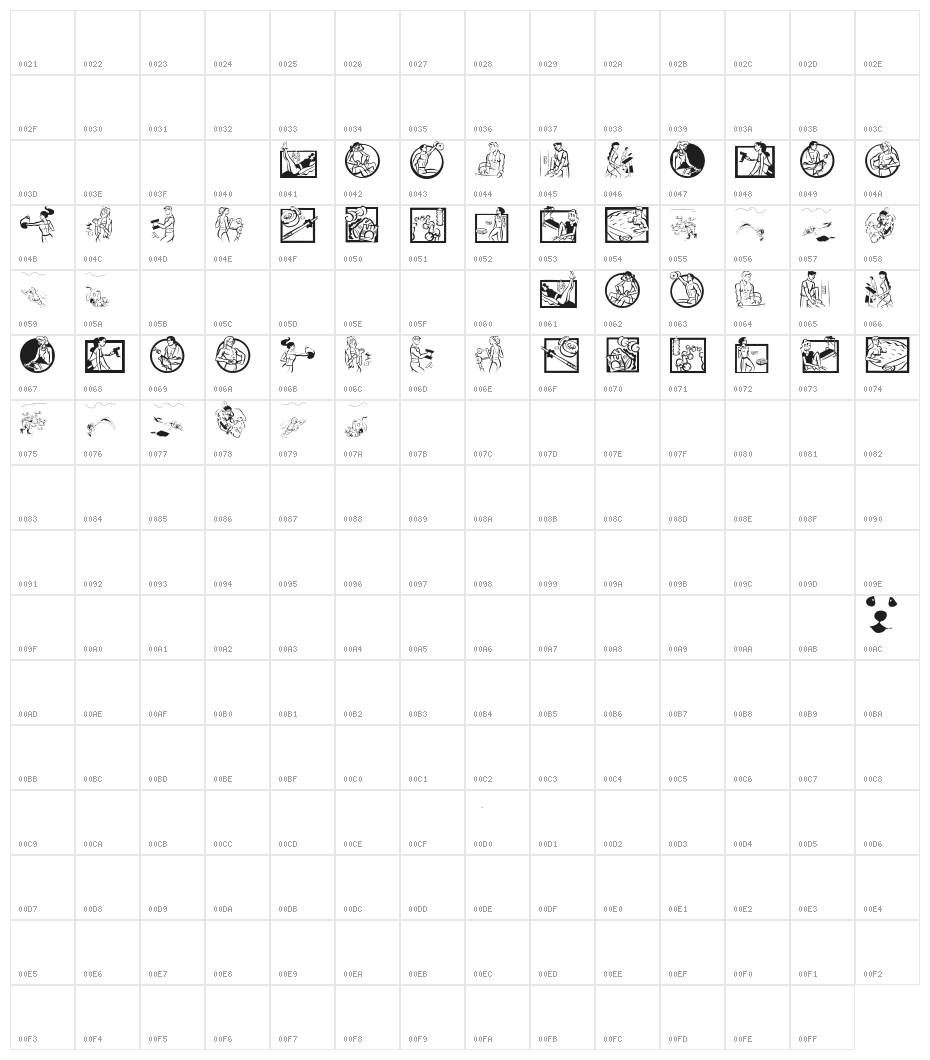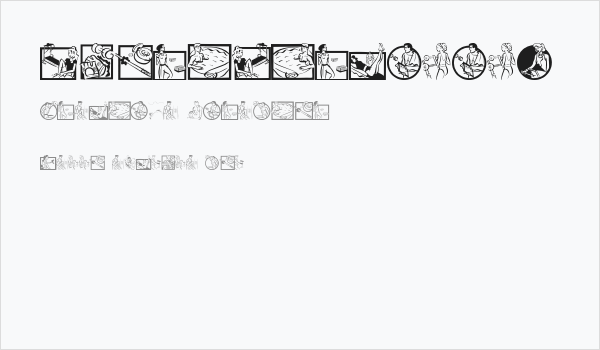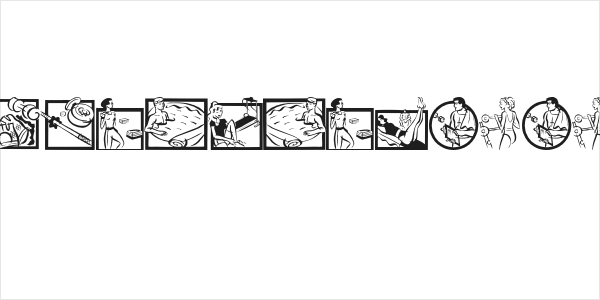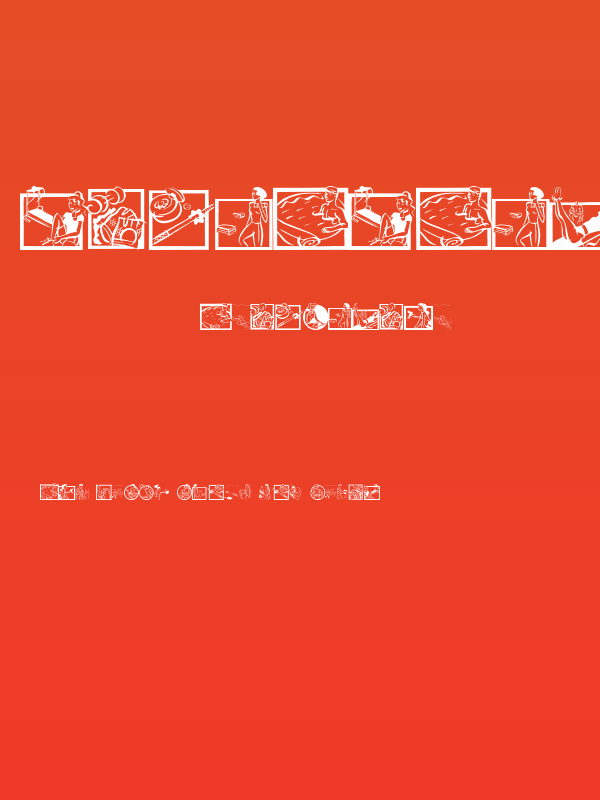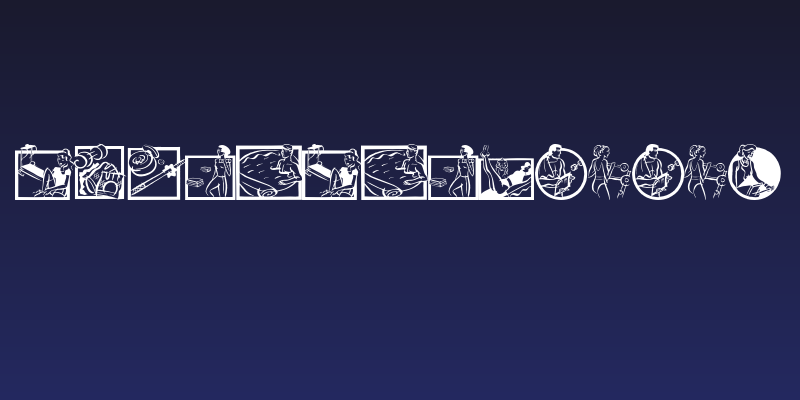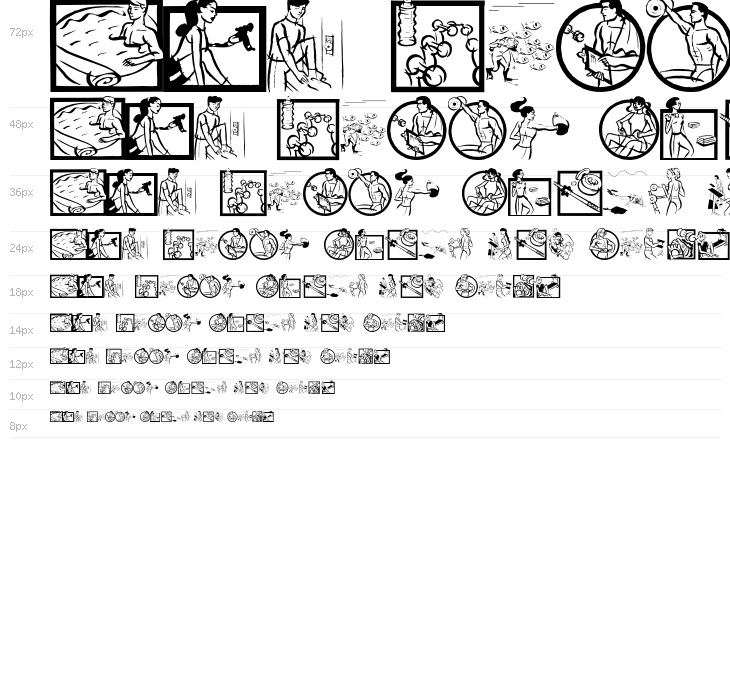
SportsTraining Font
| समग्र शैली | Illustrative, Sporty |
| उपयोग का मामला | Decorative, Educational materials |
| सुझाए गए प्रोजेक्ट | This set of illustrations could be used for sports-themed educational materials, fitness apps, or motivational posters. |